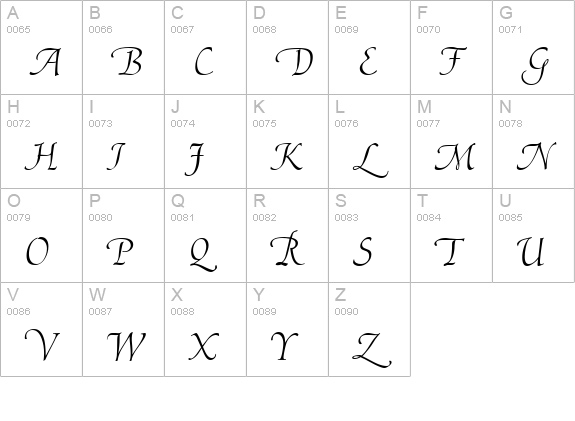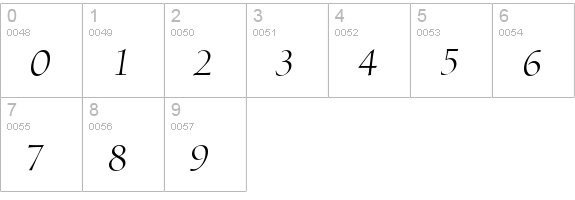
D730-Roman-Swash-Regular Font Details
D730-Roman-Swash-Regular is the standard, neutral variant in the D730 typeface family \xE2\x80\x94 well suited to general body text, paragraphs, and standard typographic work.
D730 Roman Swash Regular font is a stunning typeface that exudes elegance and sophistication. This timeless font features intricate swashes and beautiful curves that add a touch of class to any design project. Perfect for creating eye-catching headlines, invitations, logos, and more, this font is sure to make a lasting impression. And the best part? D730 Roman Swash Regular font is available for free download at FontsMarket.com. Now you can elevate your designs with this exquisite font without breaking the bank. Don't miss out on this amazing opportunity to add a touch of luxury to your projects with D730 Roman Swash Regular font.